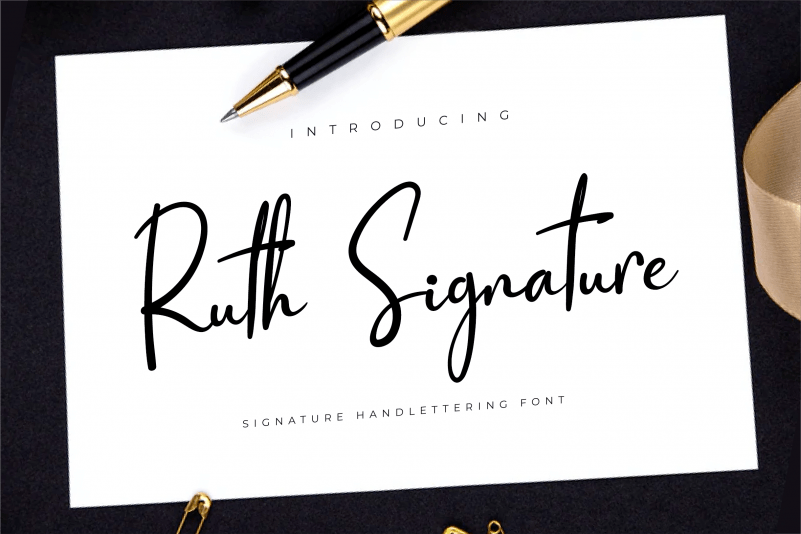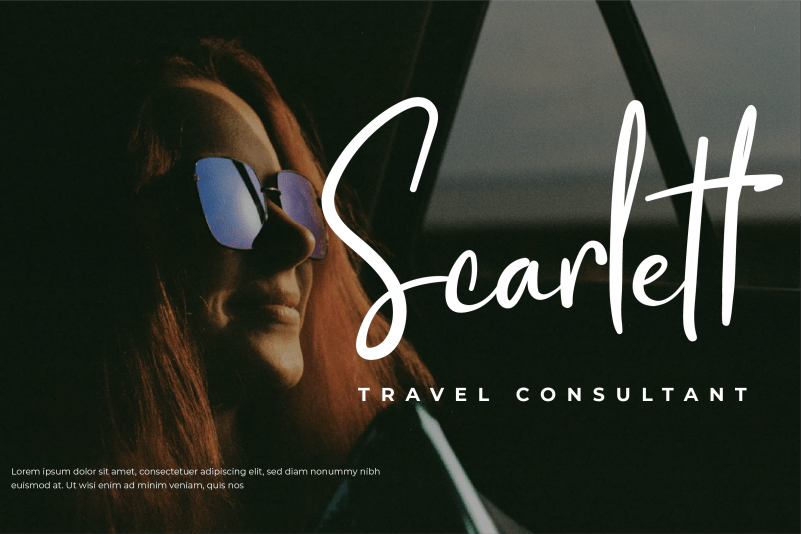
Ruth Signature Font
Ruth Signature Font is a clean, bold handwritten font. Its chunky and extended character will look particularly adept when used in logos, branding, packaging design, and much more. This masterfully designed font is a true must-have.